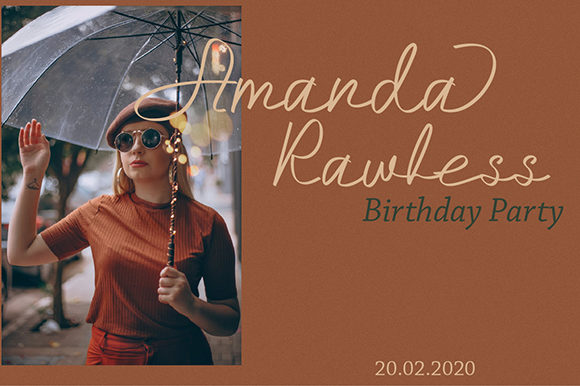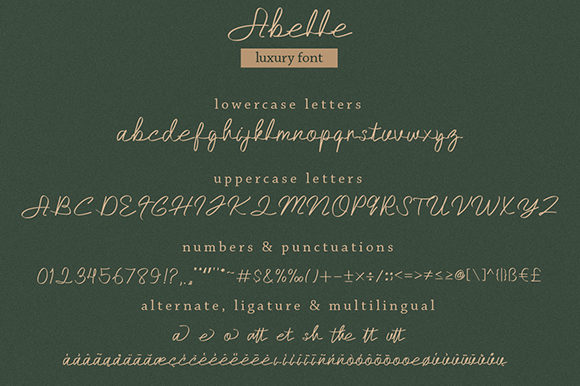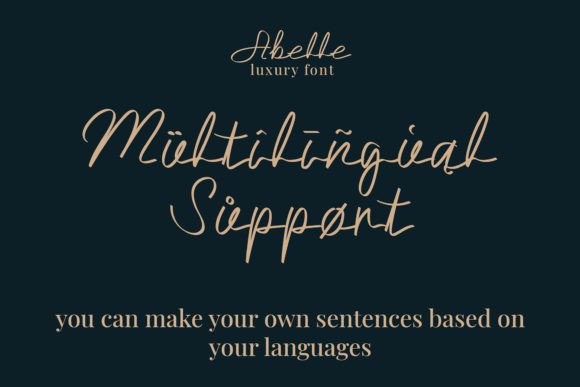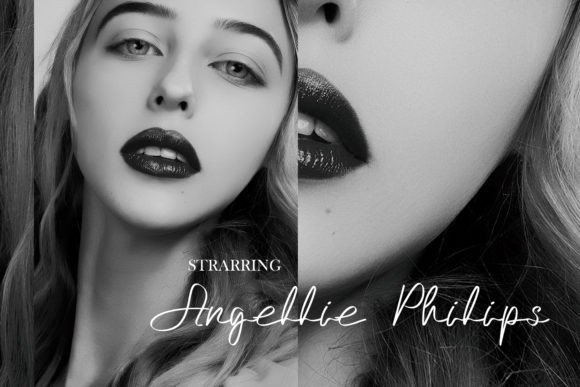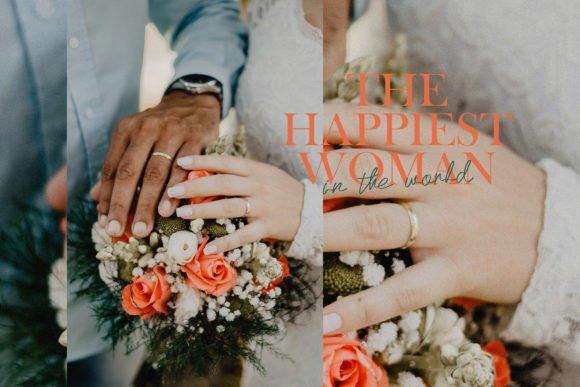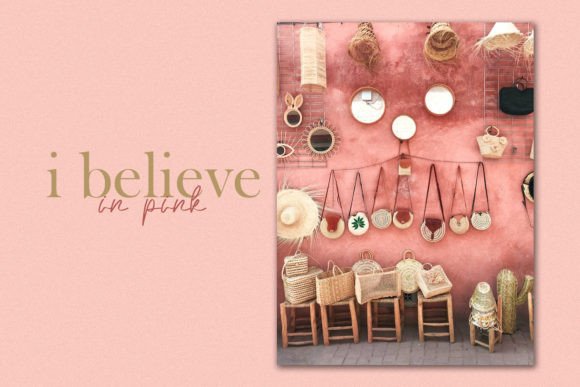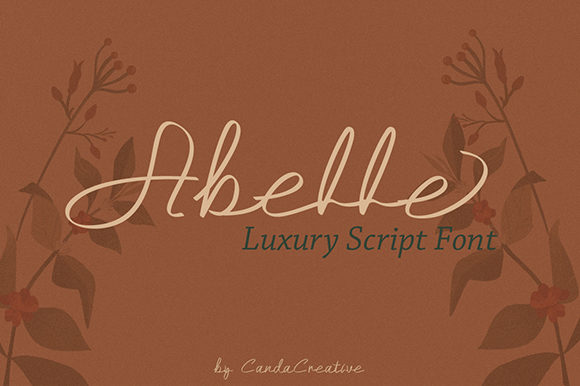
Discover the Elegance of Abelle Font: A Truly Beautiful Script with Light Lettering
Are you a designer or crafter looking for a font that exudes elegance and sophistication? Look no further than Abelle Font, a stunning script with light lettering that is sure to inspire your next creative project. With its authentic charm and beautiful design, Abelle Font is the perfect choice for anyone looking to add a touch of class and refinement to their work.
What is Abelle Font?
Abelle Font is a beautiful script font that features light lettering with a delicate and airy feel. Its elegant design makes it perfect for use in a variety of creative projects, from wedding invitations and stationery to branding and packaging. With its classic and timeless look, Abelle Font is sure to add a touch of sophistication to any design.
Key Features of Abelle Font
So, what sets Abelle Font apart from other fonts? Here are just a few of its key features:
• Light Lettering: Abelle Font features light lettering that is delicate and airy, giving it a beautiful and elegant feel.
• Script Design: Abelle Font is a script font with a classic and timeless look that is perfect for adding a touch of sophistication to any design.
• Authentic Charm: Abelle Font has an authentic charm that makes it perfect for use in creative projects where you want to add a personal touch.
• Versatile: Abelle Font is versatile and can be used in a variety of creative projects, from wedding invitations and stationery to branding and packaging.
How to Use Abelle Font in Your Designs
Abelle Font is easy to use and can be incorporated into a variety of creative projects. Here are just a few ideas to get you started:
• Wedding Invitations: Use Abelle Font to create beautiful and elegant wedding invitations that set the tone for a sophisticated and refined wedding.
• Stationery: Add a touch of class and elegance to your stationery with Abelle Font, perfect for use in letterheads, business cards, and more.
• Branding: Use Abelle Font to create a sophisticated and refined brand identity that exudes elegance and sophistication.
• Packaging: Add a touch of elegance to your packaging with Abelle Font, perfect for use on labels, tags, and more.
Tips for Getting the Most Out of Abelle Font
Here are just a few tips for getting the most out of Abelle Font:
• Use it with contrasting fonts: Abelle Font looks best when paired with contrasting fonts that provide a clear visual contrast.
• Experiment with different sizes: Abelle Font can be used at a variety of sizes, from large headings to smaller body text.
• Add embellishments: Consider adding embellishments, such as flourishes or swashes, to give Abelle Font an extra touch of elegance.
Abelle Font is a truly beautiful script with light lettering that is sure to inspire your next creative project. With its authentic charm and elegant design, Abelle Font is the perfect choice for designers and crafters looking to add a touch of sophistication and refinement to their work. Whether you’re creating wedding invitations, stationery, branding, or packaging, Abelle Font is a versatile and elegant choice that is sure to impress.